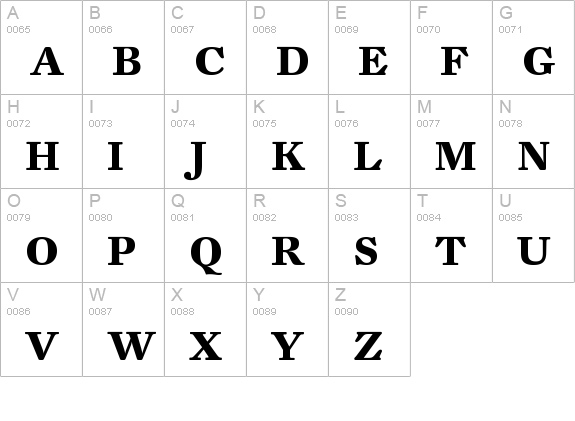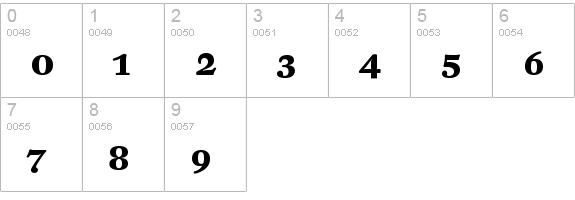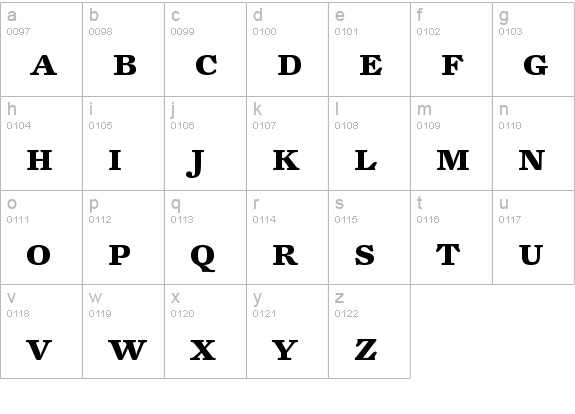
DTLFleischmannT-CapsBold is a striking and versatile font that exudes confidence and sophistication. Its bold and uppercase design makes a bold statement while maintaining a sense of elegance. Perfect for headlines, titles, and branding, this font is sure to make your text stand out. And the best part? DTLFleischmannT-CapsBold is available for free download at FontsMarket.com. Take advantage of this opportunity to enhance your design projects with this exceptional font without any cost. Add a touch of professionalism and style to your work with DTLFleischmannT-CapsBold today!